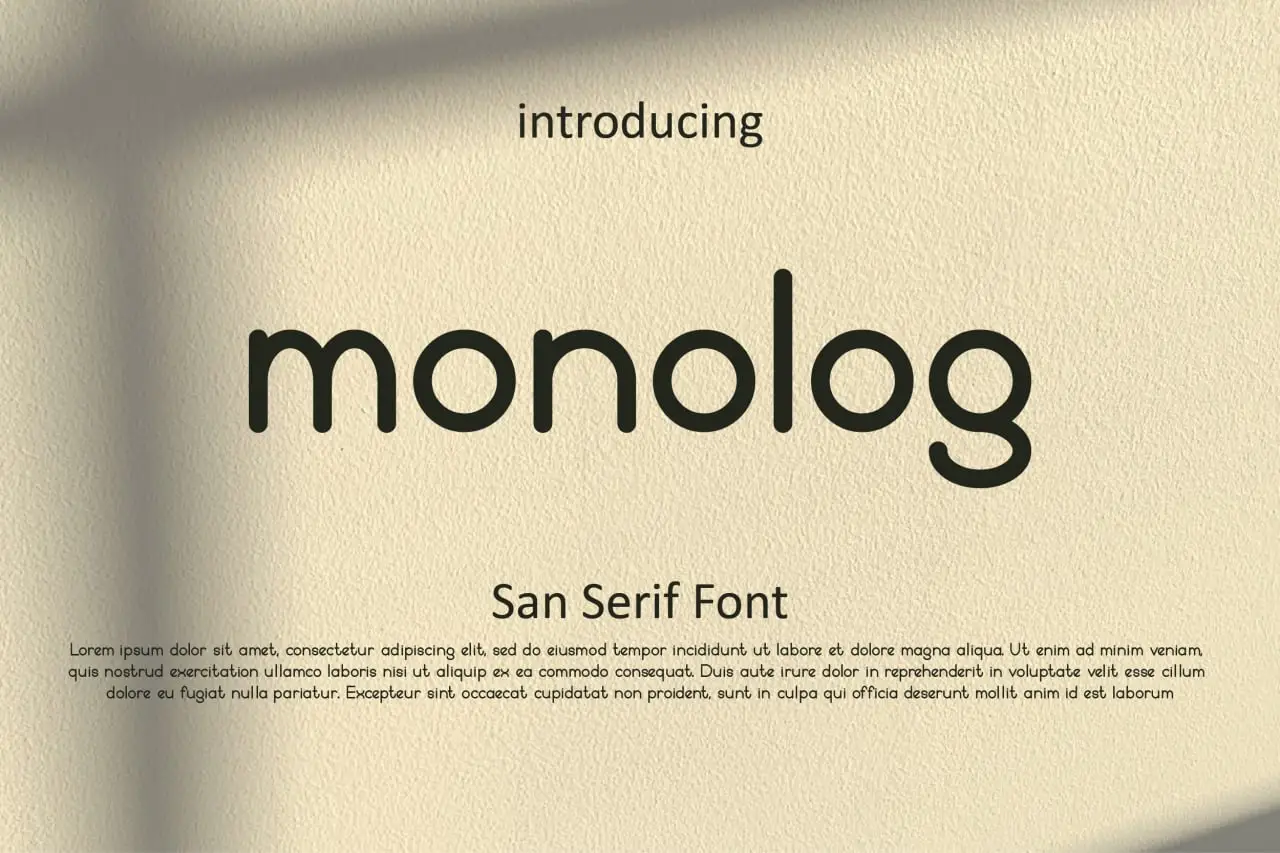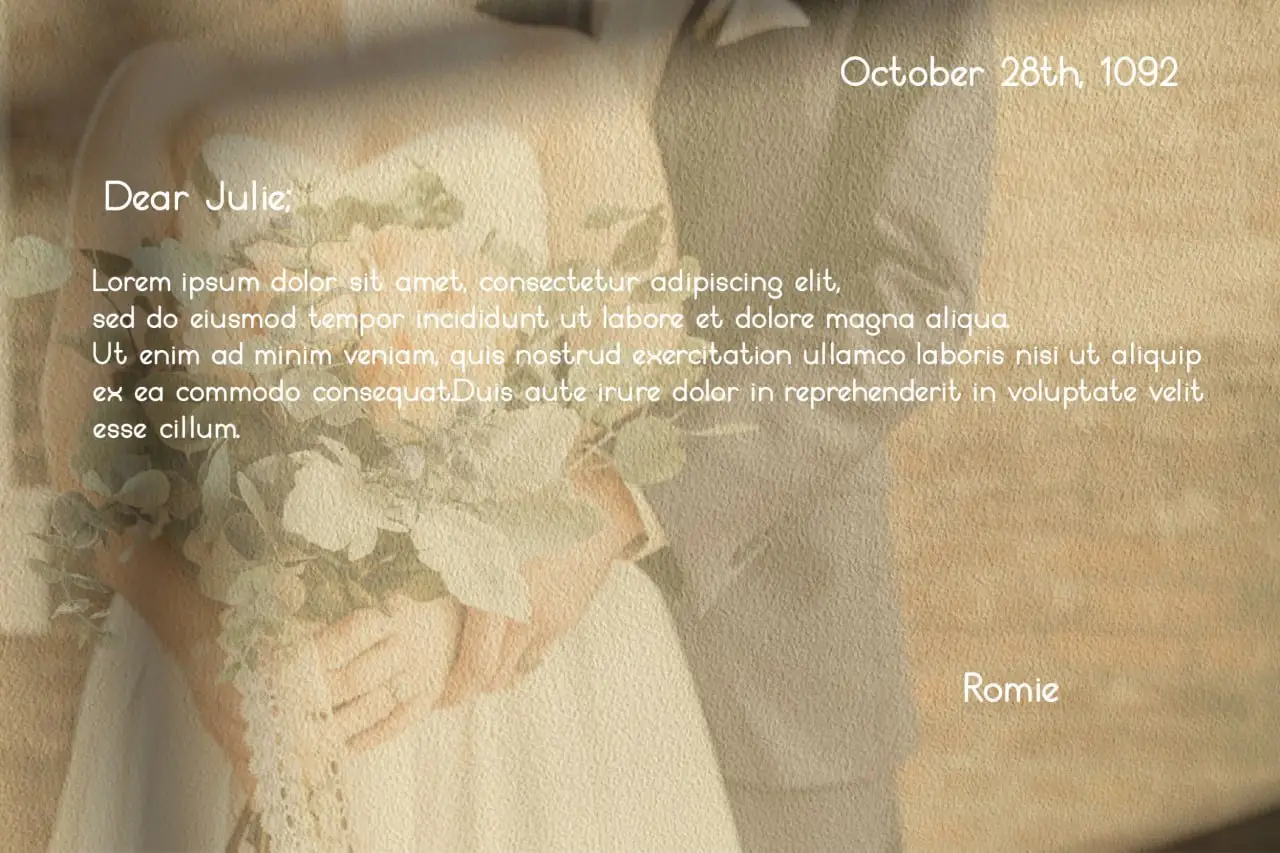
Monolog Font By Patlot Digital Std
The Monolog Font by Patlot Digital Std is a versatile typeface that combines elegance and modernity. With its clean lines and distinctive character, this font is perfect for a variety of design projects.
• Multiple weights for flexibility in design
• Stylish and contemporary aesthetic
• Highly legible in both large and small sizes
• Ideal for branding, logos, and print materials
• Great for web design and user interfaces
• Use in headlines and body text for a cohesive look